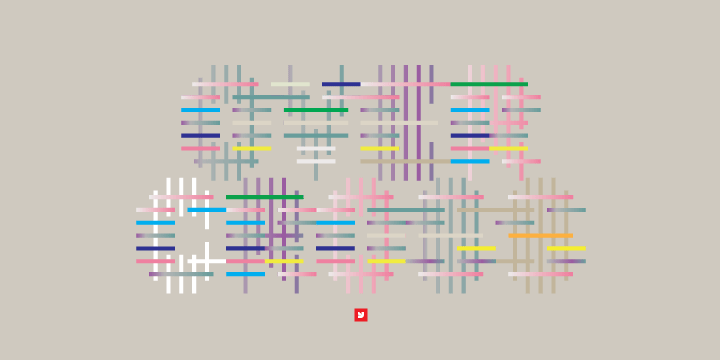
• YWFT OverCross
YWFT OverCross is one of the most unique type designs to come out of the late 90’s and early 2000’s. It originally started as a typeface design setting out to explore visual form but at the same time keep it’s legibility. At close range, YWFT OverCross is visually beautiful but rather unreadable. But take a step back, and from a distance it is completely legible. Still to this day we still don't understand how a mesh of lines can make these letterforms, but they do. YWFT OverCross was completed in 2002, and converted to opentype in 2010. It has been used by numerous magazines and seen multiple times on independent t-shirt and postcard designs.